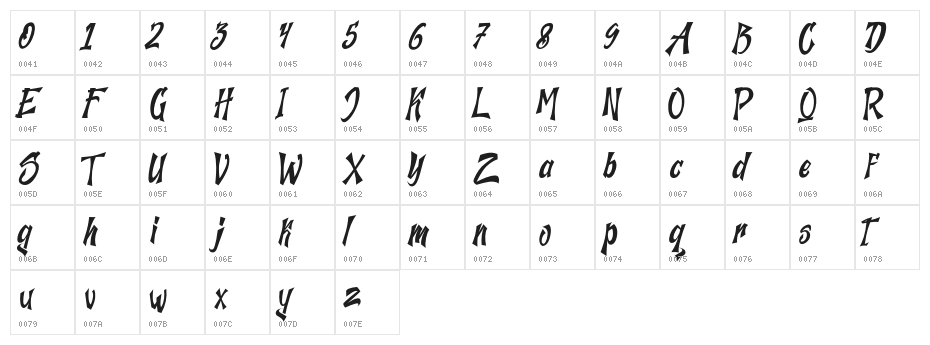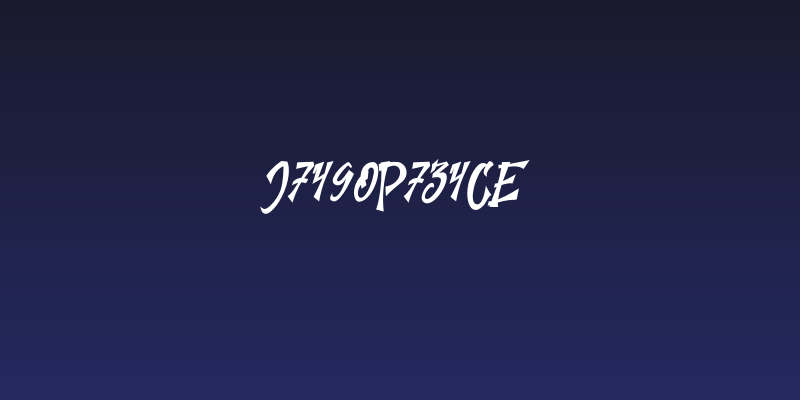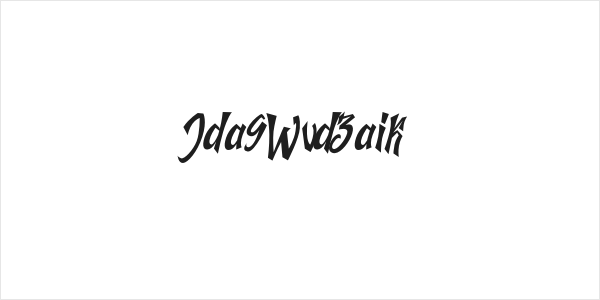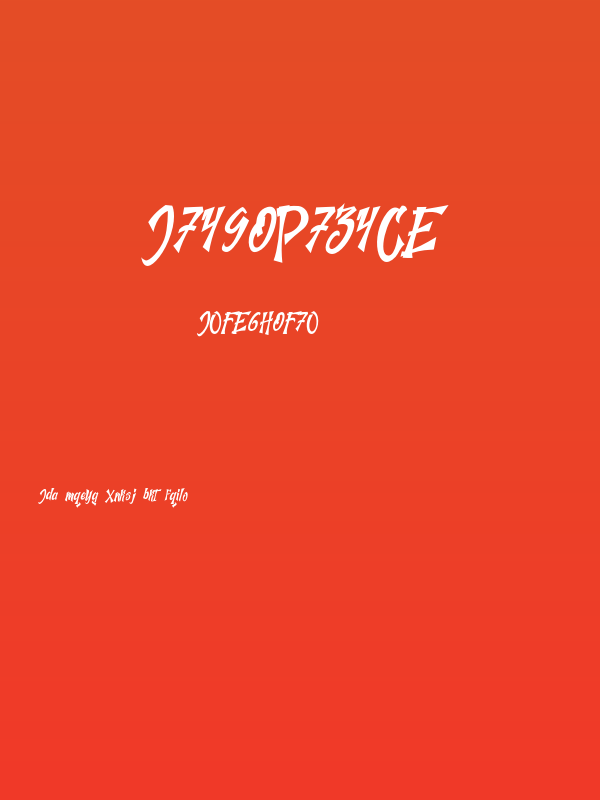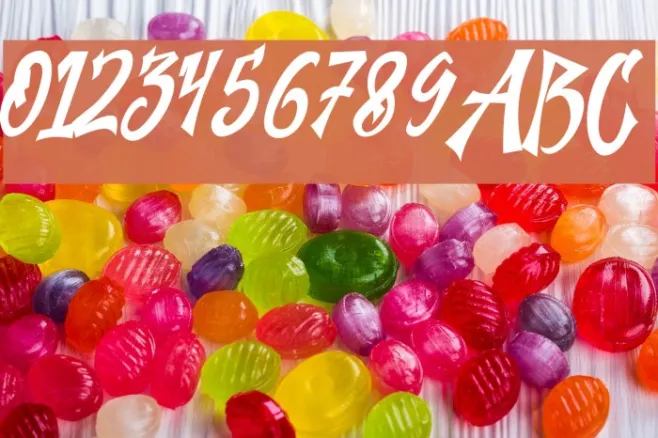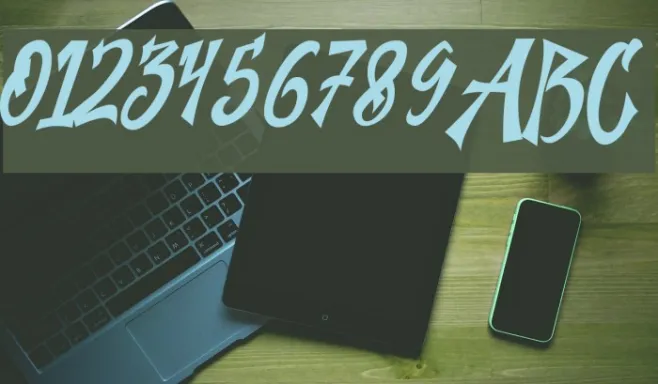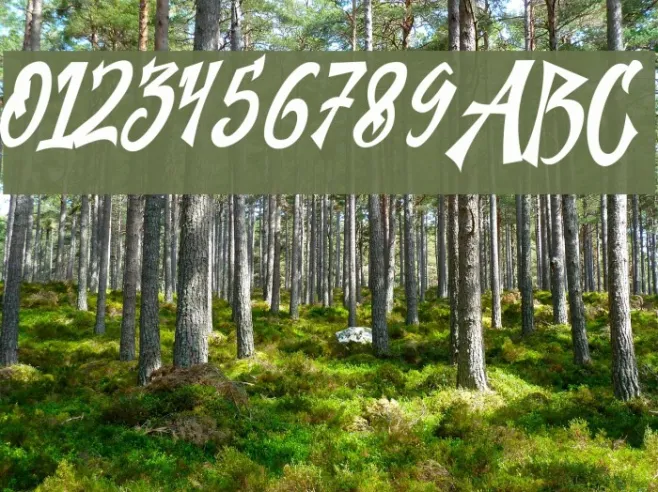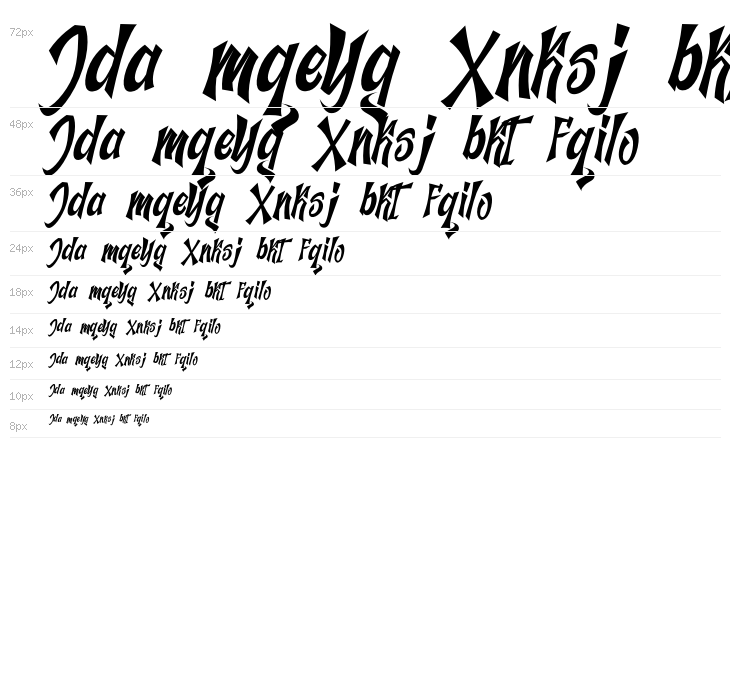
TheJazhDemo Font
TheJazhDemo Description
This font features a bold and dynamic style with a strong presence. The characters are sharply angled and have a distinct, energetic flair, reminiscent of graffiti or street art. The uppercase letters are particularly striking, with exaggerated serifs and a sense of movement. The lowercase letters maintain the same energetic style, with a slightly more condensed form. Numbers and special characters are consistent with the overall aesthetic, making them suitable for attention-grabbing designs. The font's unique style makes it ideal for projects that require a bold statement.
| Overall Style | Modern, Artistic |
| Proposed Projects | Ideal for posters, album covers, streetwear branding, and any project needing a bold, artistic touch. |
| Author | Fonts by Måns Grebäck |